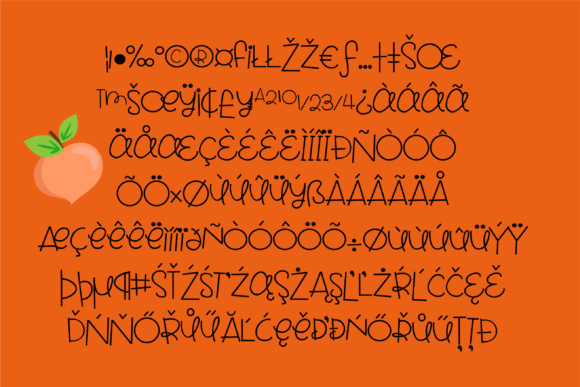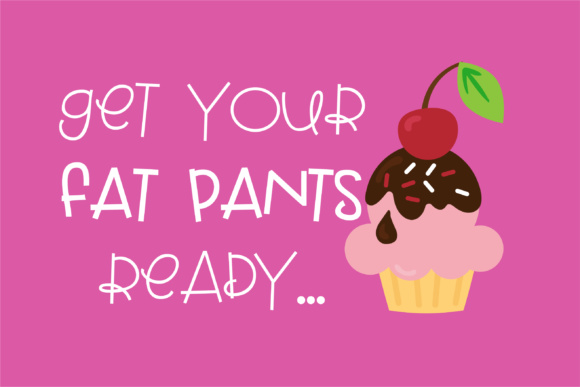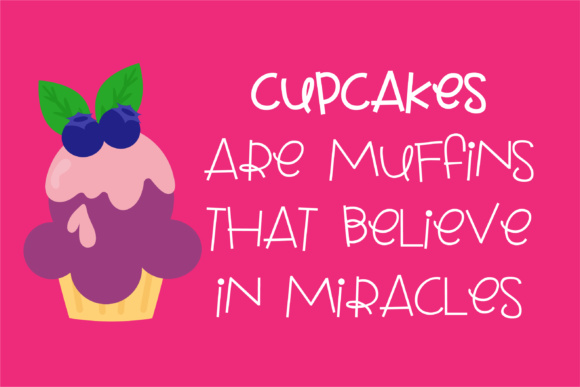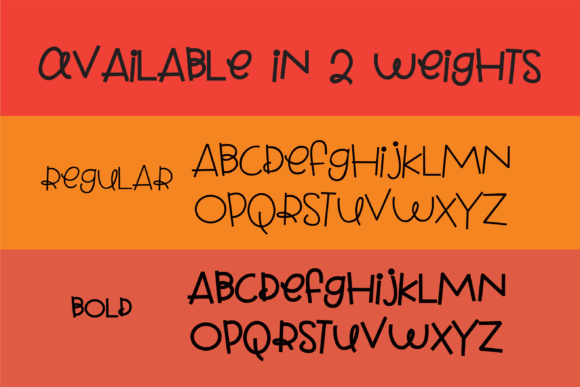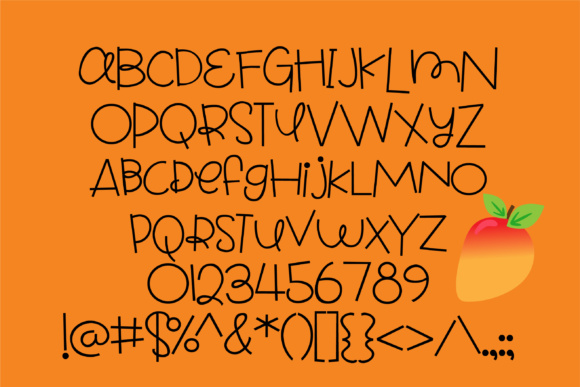
HomeScript FontsPeach Mango Font Script Fonts Peach Mango Font FacebookXPinterestWhatsApp Peach Mango Font Poster 2 Peach Mango Font Poster 3 Peach Mango Font Poster 4 Peach Mango Font Poster 5 Peach Mango Font Poster 6 About Peach Mango Font Peach Mango is a cute and whimsical font which comes in two versions. DOWNLOAD NOW People also explored Glamoura Font Sallyh Alotah Font Rushing Pass JNL Font The Limited Font Flamboyan Font Whiteflag Font Jimmy Lofu Font Rosefield Font Fox Sport 6 Fonts Style Font 660 0 TagsPeach Mango Font Previous articleTomatoes FontNext articleGingerbread Cake Font LEAVE A REPLY Cancel reply Comment: Please enter your comment! Name:* Please enter your name here Email:* You have entered an incorrect email address! Please enter your email address here Website: Save my name, email, and website in this browser for the next time I comment. Personal Use Free Sushi Day Personal Use Free Read more about this font Klotee Personal Use Free Read more about this font BD Lofi Personal Use Free Read more about this font Playground Clip Art Personal Use Free Read more about this font BLOG Elegant Wedding Invitation Fonts – Handwritten & Script Fonts Elegant Wedding Invitation Fonts Your wedding day is one of the most important moments of your life, and every detail matters—including your invitation design. Our... Modern Sans-Serif Fonts That Brands Love in 2025 Fonts That Capture the Spirit of New York City To increase your work productivity, choose the most readable fonts.